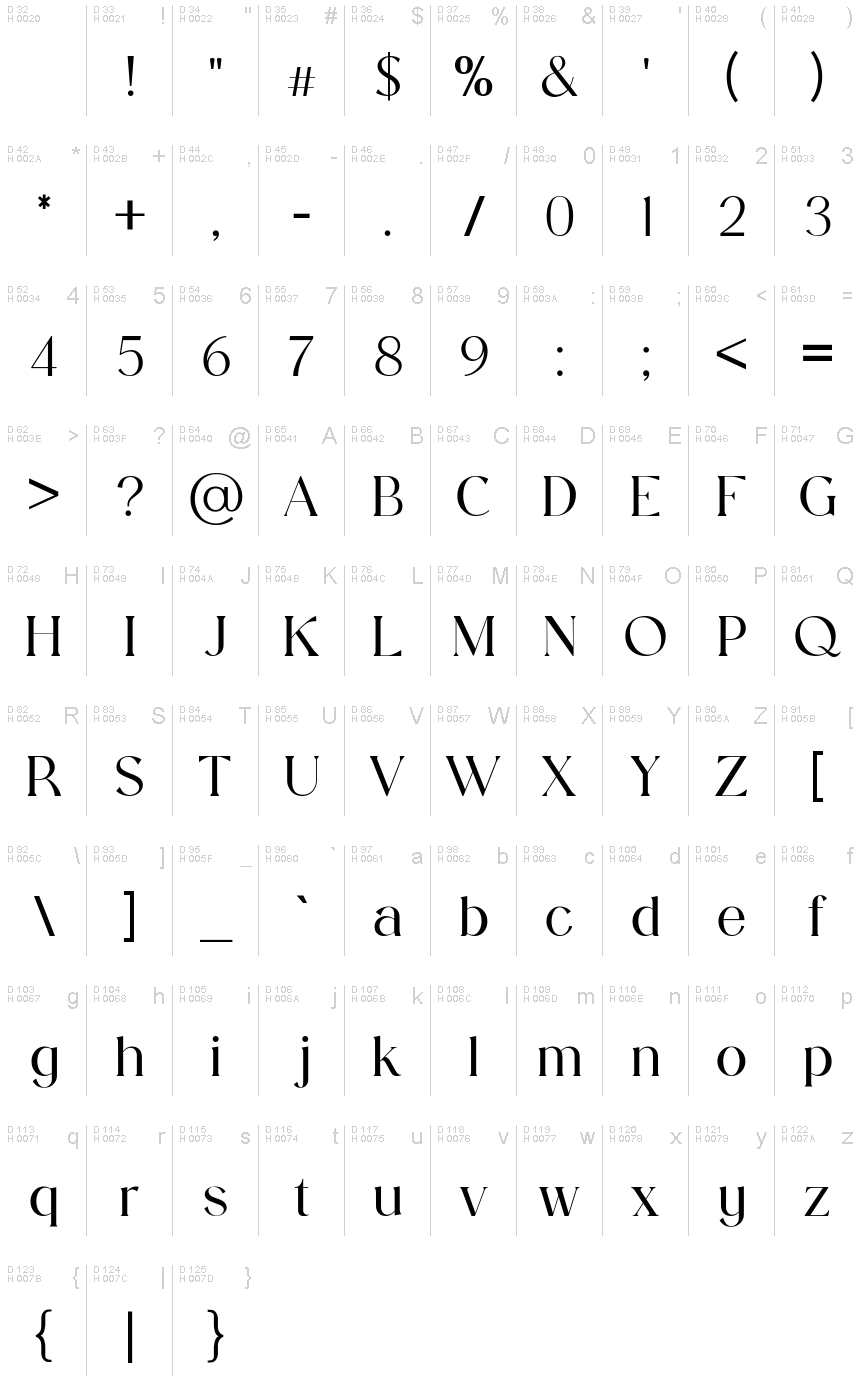
Extradicta
Extradicta captivates with its elegant serif design, showcasing a blend of classic sophistication and contemporary allure. The font features strikingly pronounced strokes that draw the eye, while its graceful curves add a sense of fluidity and warmth.
Visually, Extradicta expresses a bold character that stands out in both print and digital formats, making it ideal for branding or high-end editorial content. Its refined silhouette lends itself beautifully to upscale invitations or elegant website headings, where the right balance of tradition and modernity is essential.
With its luxurious presence, Extradicta elevates any design project—perfect for evoking a sense of trust and prestige in every letter crafted.